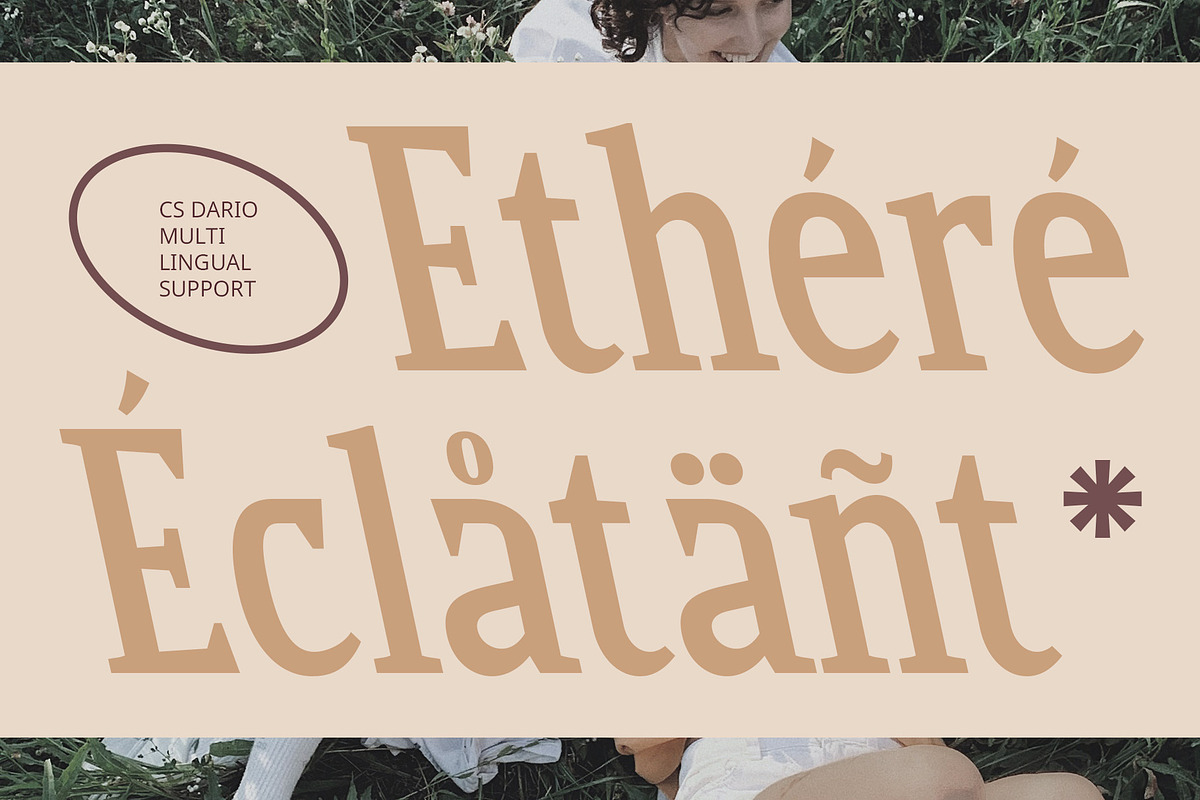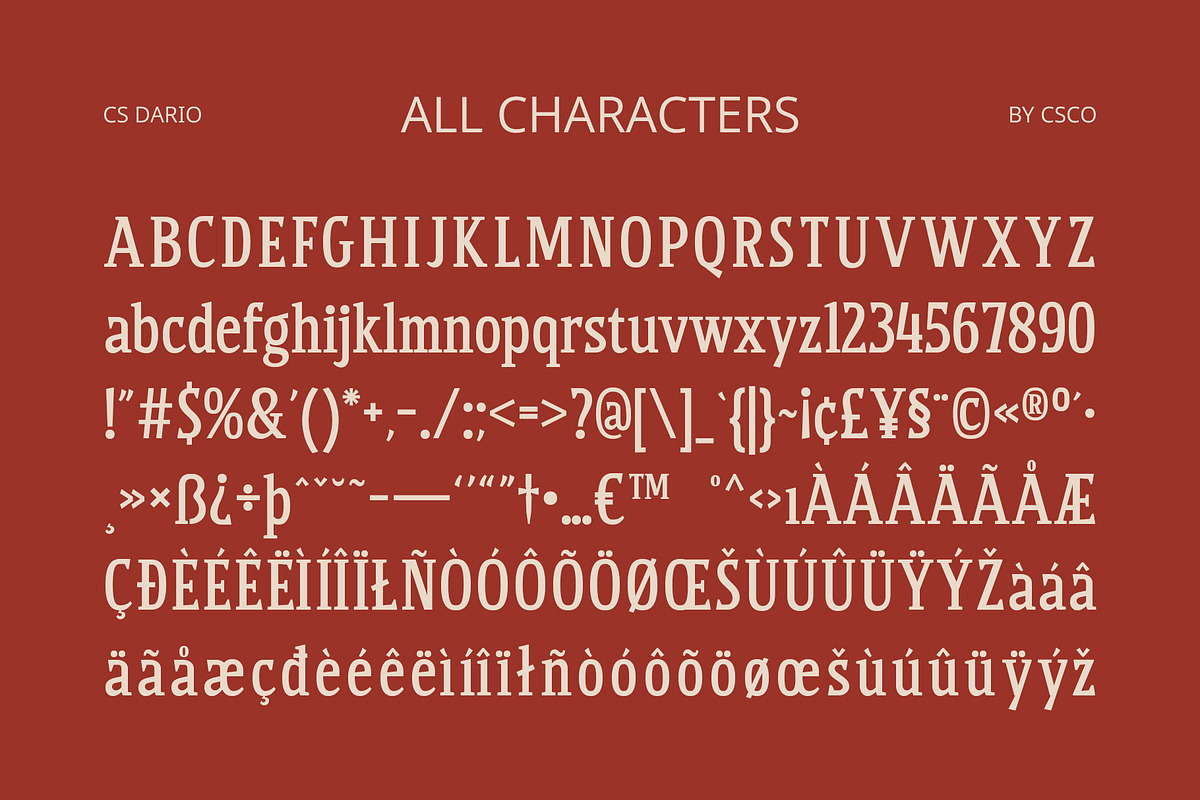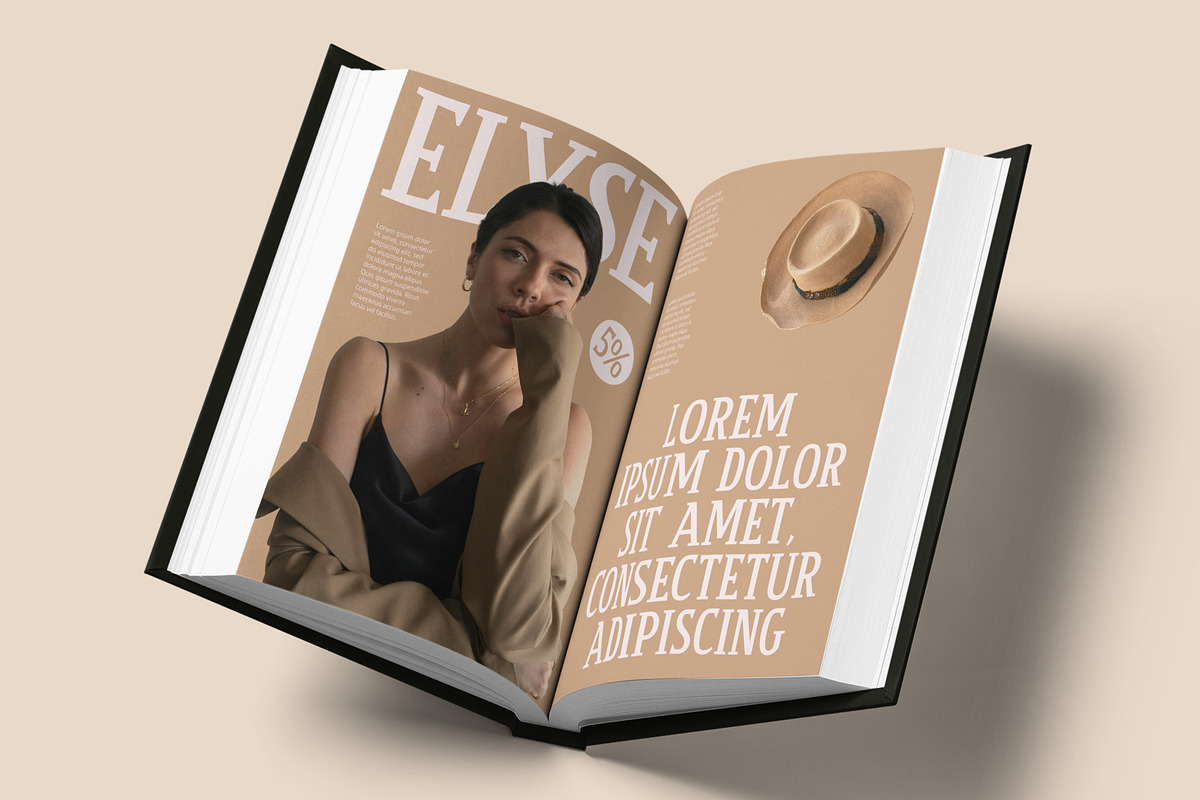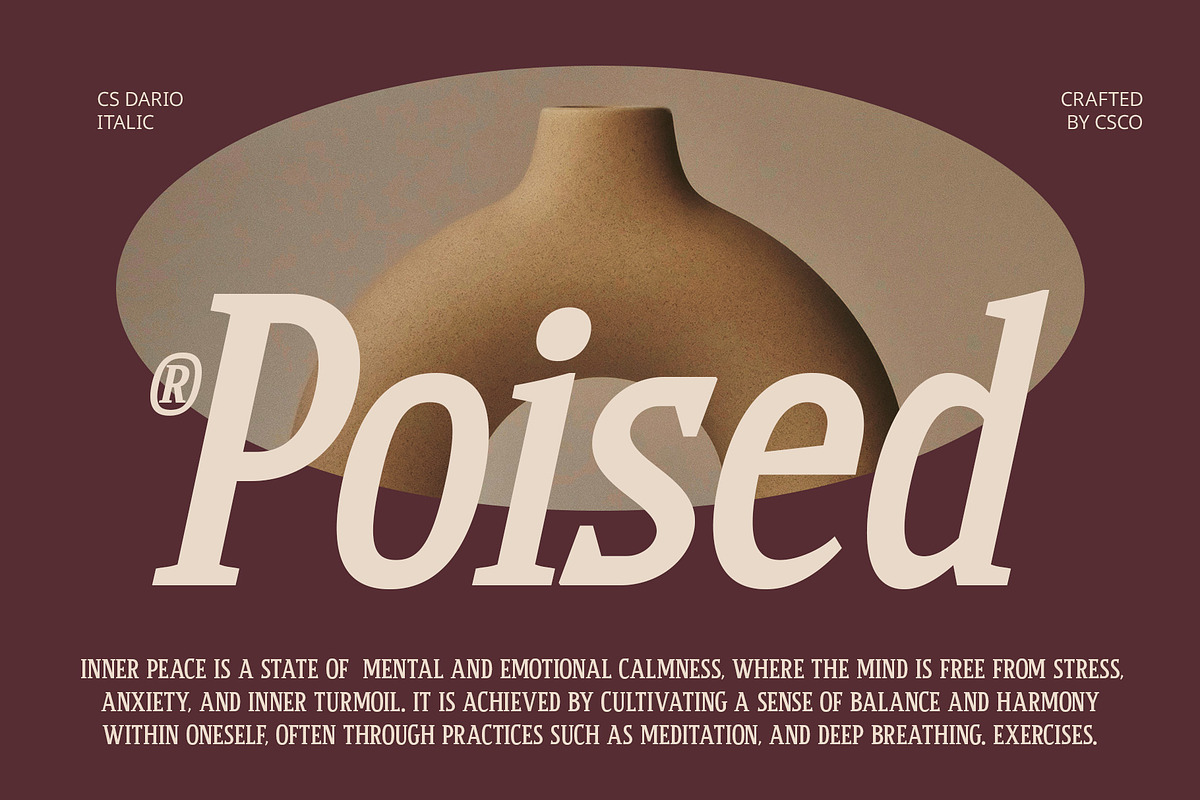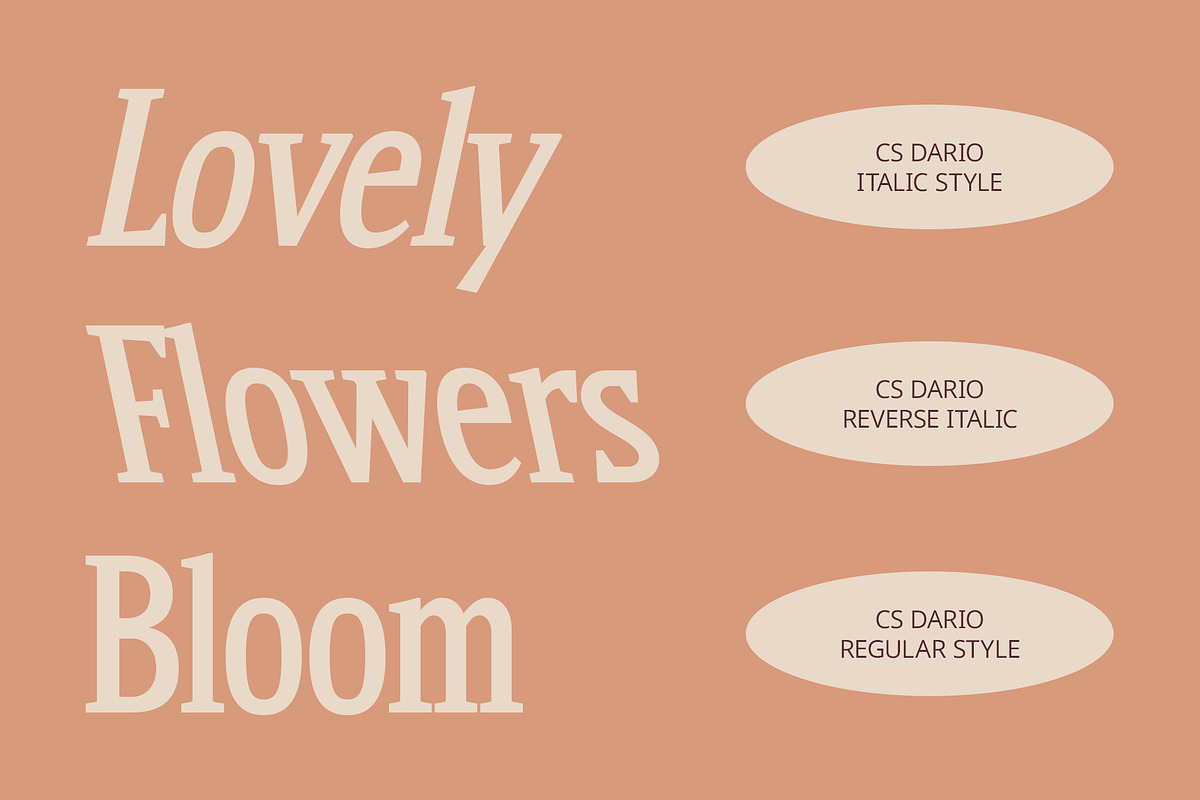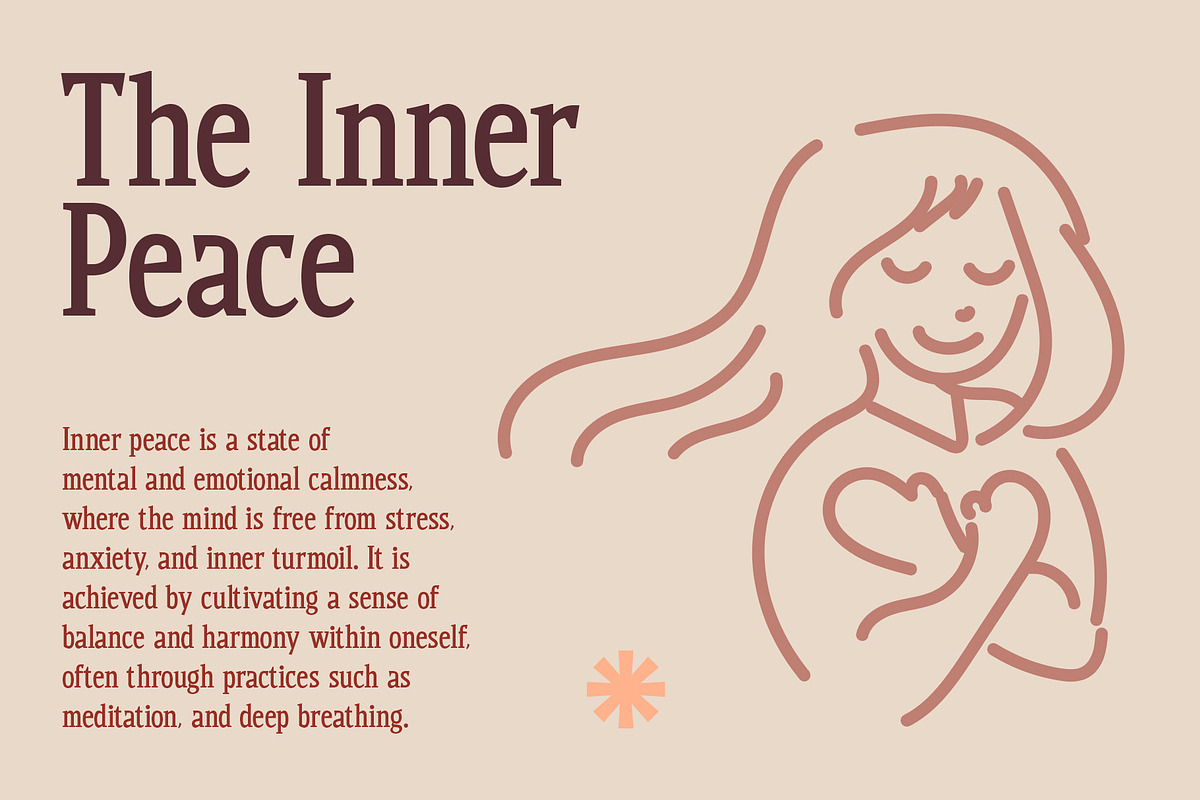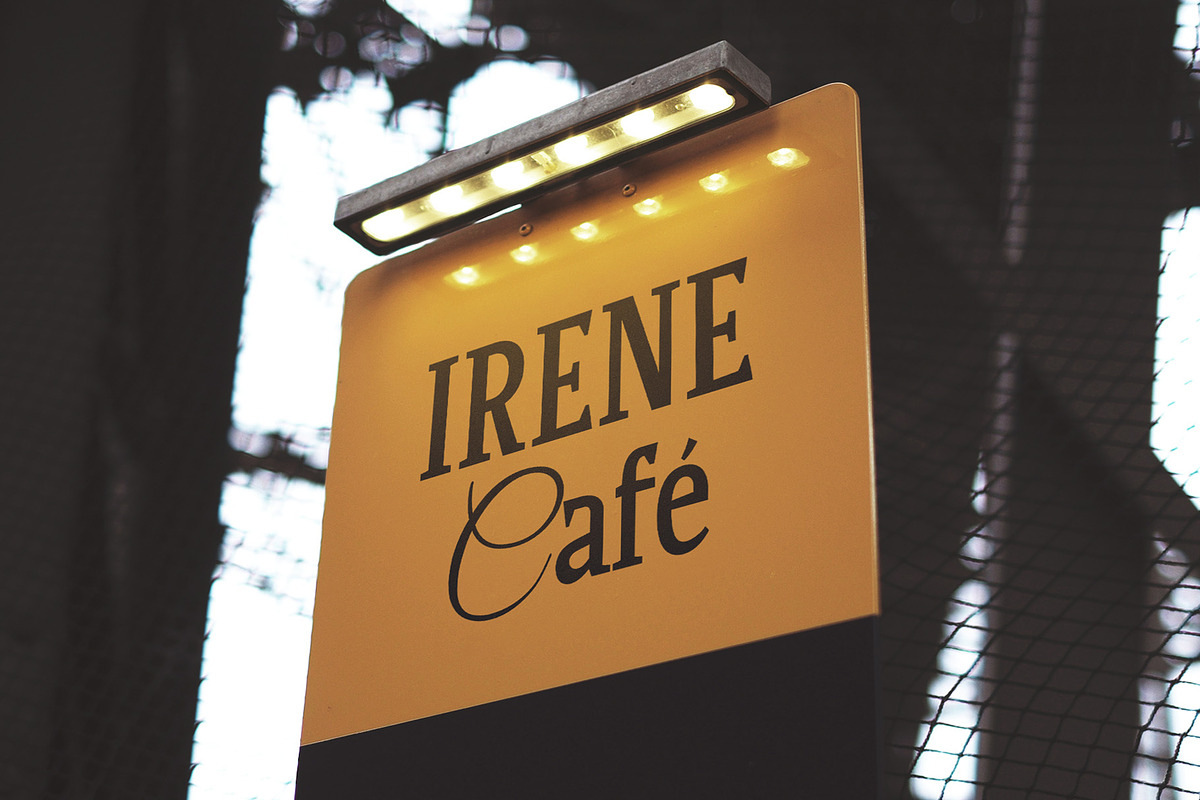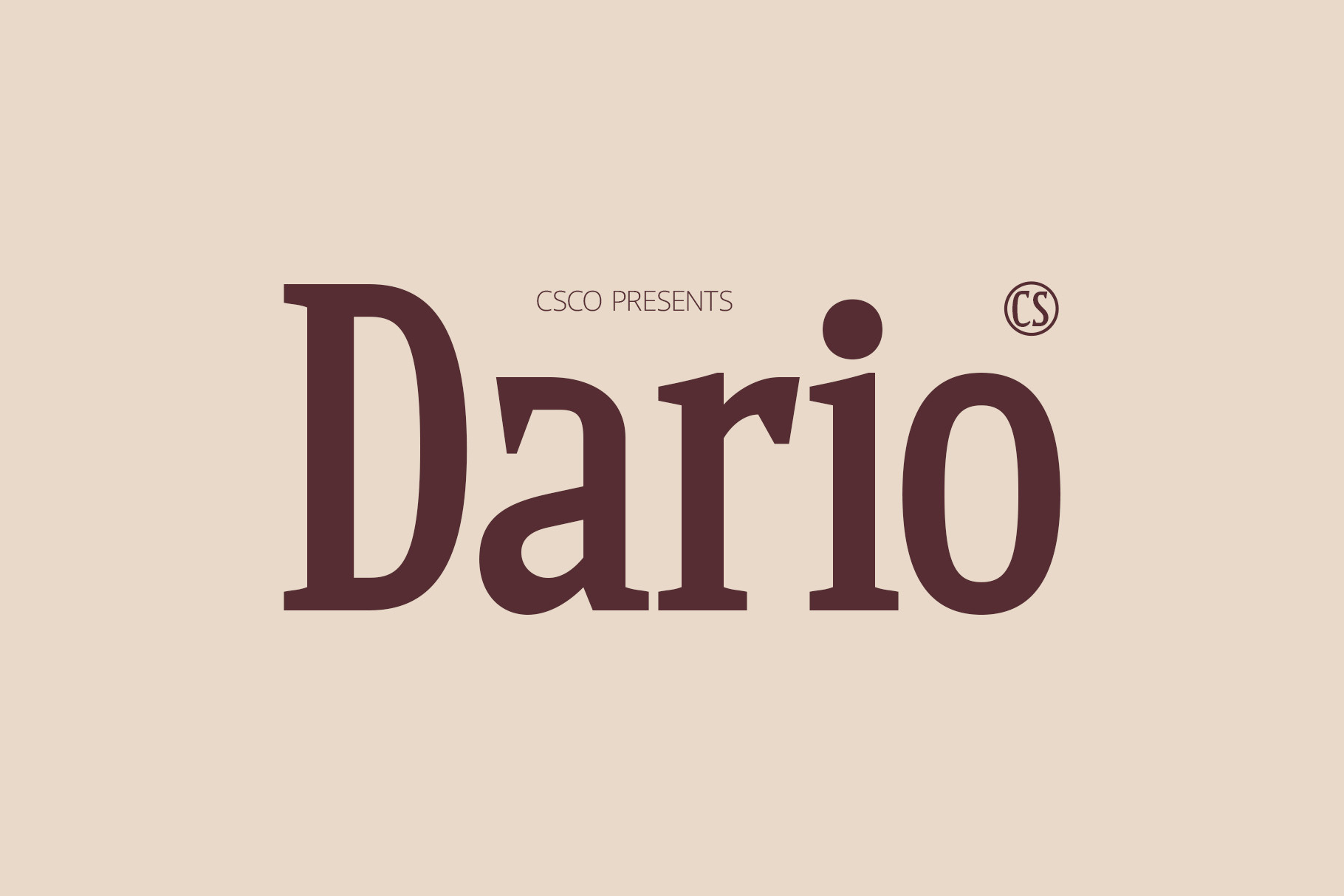
CS Dario – Bold Font
CS Dario – Bold Font: Commanding Strength with Elegant Refinement
Modern Serif Font with Bold Strokes CS Dario is a modern serif font that features bold, substantial strokes, combining strength with elegance. Its thick letterforms and prominent serifs create a commanding presence, making it an excellent choice for professional applications.
Substantial Letterforms for Authority The robust design of CS Dario ensures a strong visual impact, perfect for conveying authority and style. The bold letterforms and prominent serifs deliver a powerful and sophisticated look, suitable for high-profile presentations and corporate branding.
Refined Aesthetic with a Touch of Class Despite its boldness, CS Dario maintains a refined aesthetic, blending robust design with a touch of class. This combination allows it to excel in sophisticated marketing materials and professional settings where both strength and elegance are essential.
Ideal for Professional and High-Impact Projects CS Dario is ideal for projects that demand a mix of authority and elegance. Whether used in corporate branding, high-impact presentations, or stylish marketing materials, this font provides a commanding yet refined presence, making it perfect for conveying professionalism and style.
- CS Dario Regular
- CS Dario Italic
- CS Dario Reverse Italic